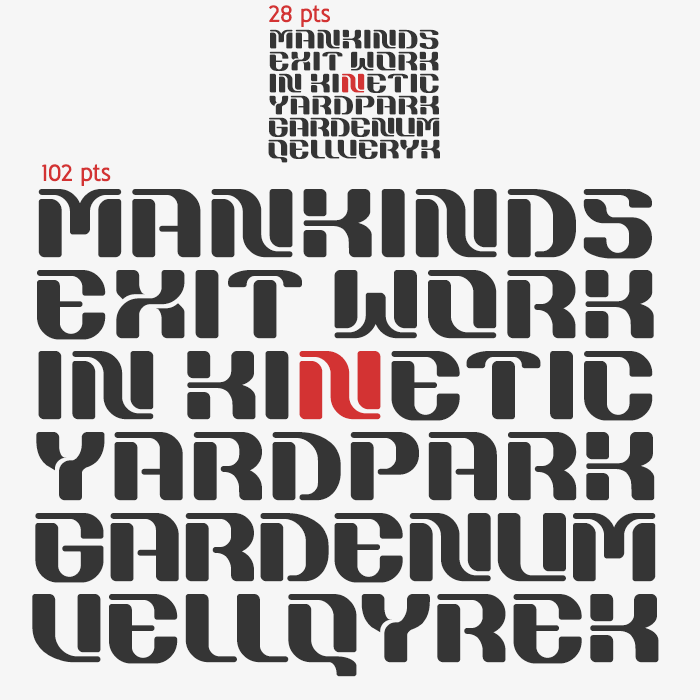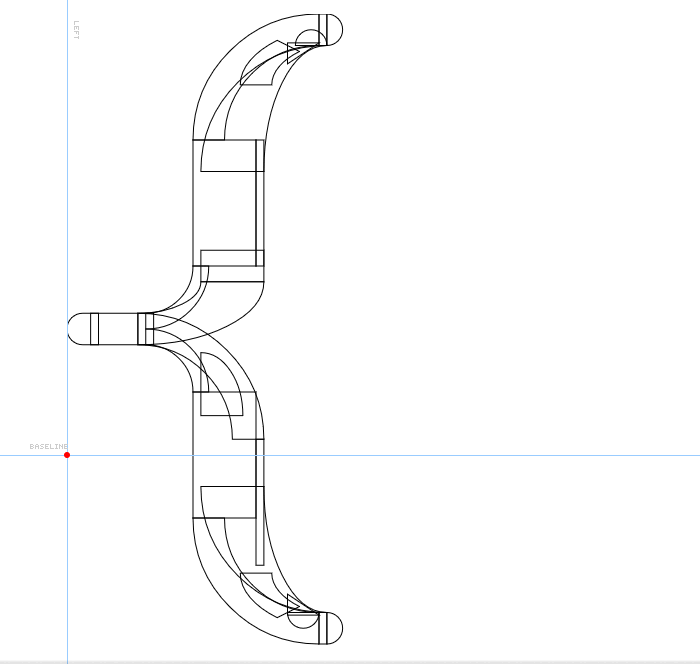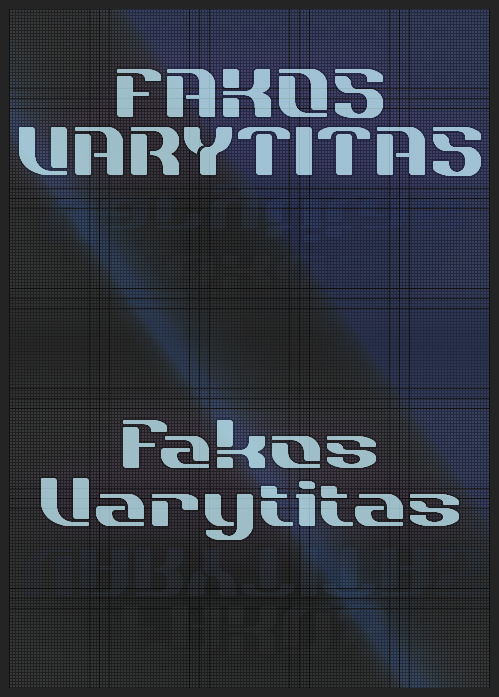
• FAKOS VARYTITAS - Futuristic Sci-Fi stencil design
A Stencil letter with a rather unorthodox form.
The main concept is that of the Sci-Fi / Tech aesthetic. But the asymmetrics in its geometry, various custom build curves and incisions somewhat tune down the mechanical geometric tone of the letterforms, and introducing a slight more humanized touch to its rhythm. These non-traditional attributes making this more of a novel stencil typeface with a strong personality.
The typeface was inspired by space age tech.  Its a display style font that is perfect for when your project has to have that typical techy or futuristic aesthetic look. Its best used at large size, but it does work in smaller size format as well.
The font includes:
• uppercase, lowercase & numerals
• accented latin
• diactritics
• symbols & punctuation marks
• ligatures
• some glyph alternatives
• ornamental decorative elements
All "lingual" characters are functional stencils, the only exceptions that aren't stenciled are the ornamental decorative symbols and dingbats.
Many small cosmetic improvements made to various letterforms, also included many new characters, expanding the multilingual support significantly.
Newly added:
• accented latin
• diactritics
• ligatures
• some glyph alternatives
• 2778 kerning pairs